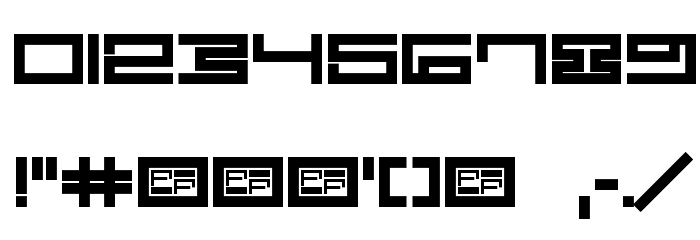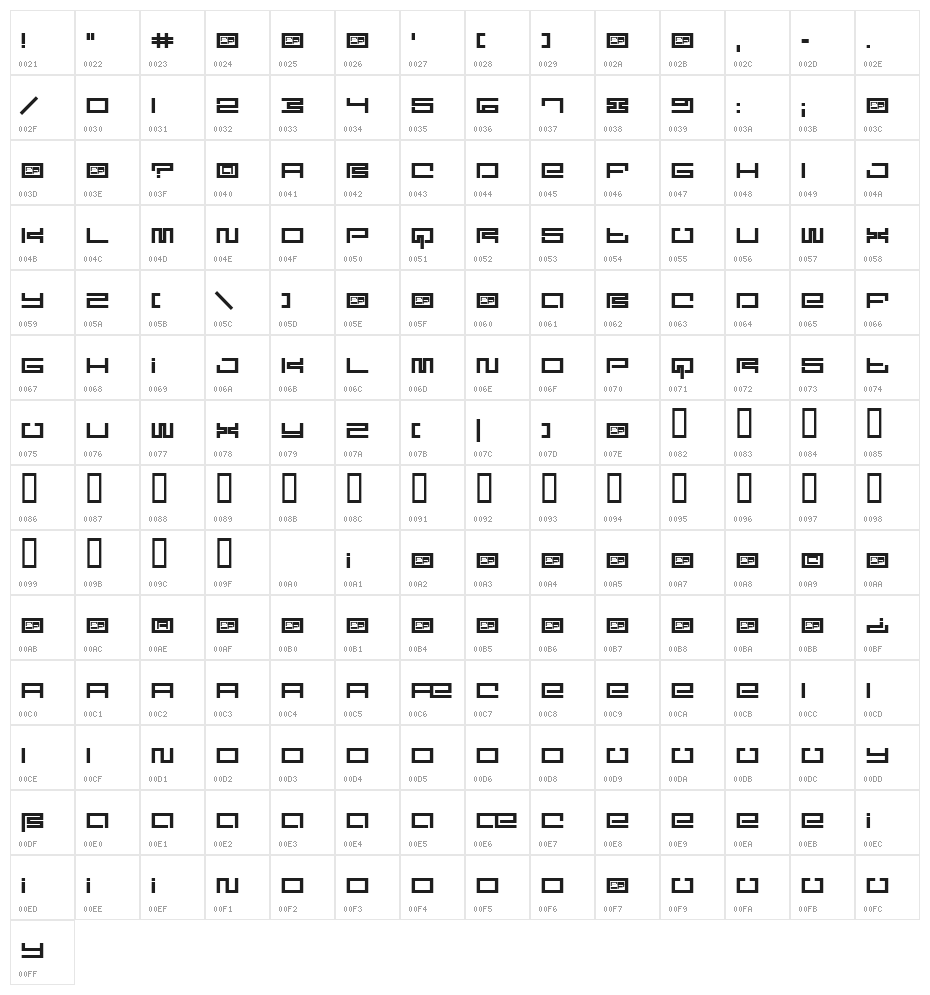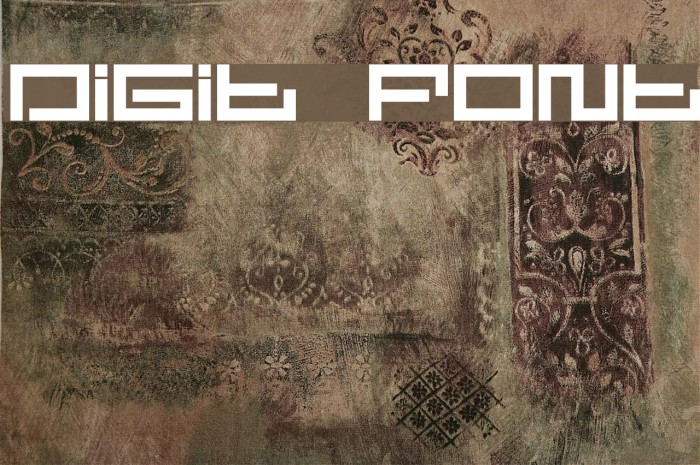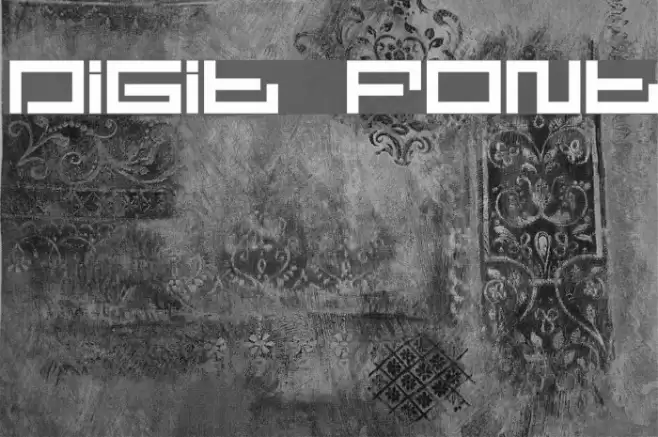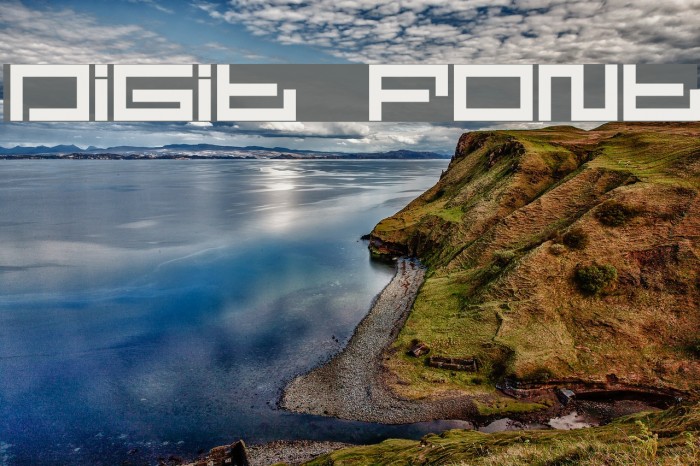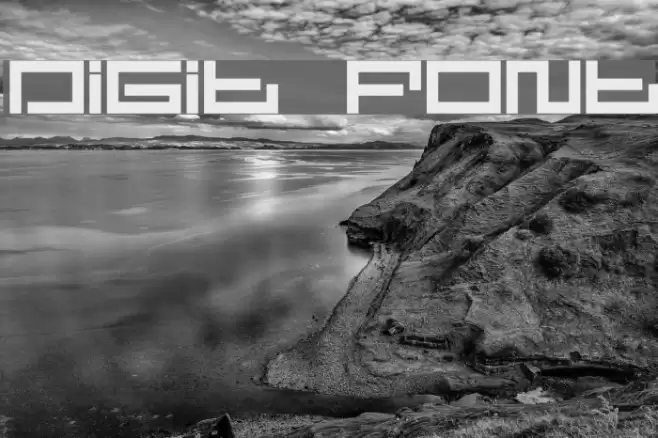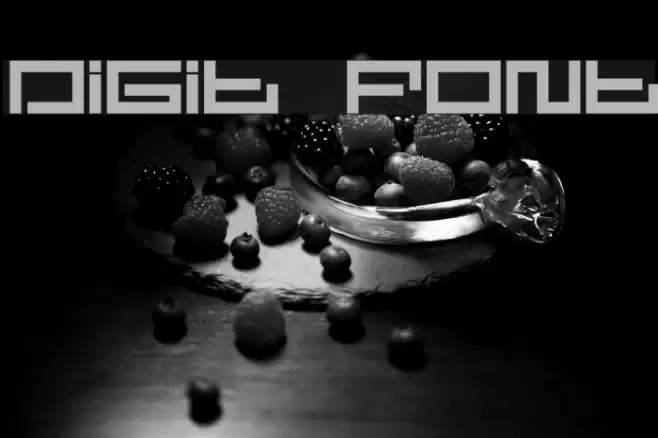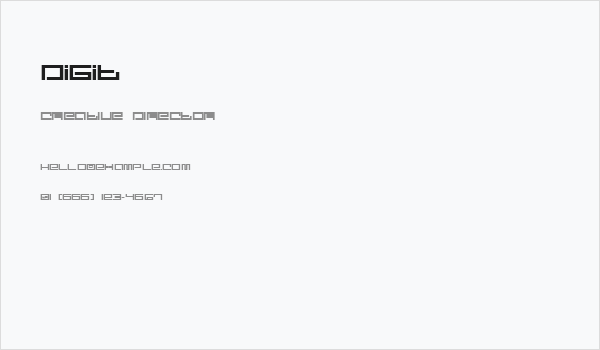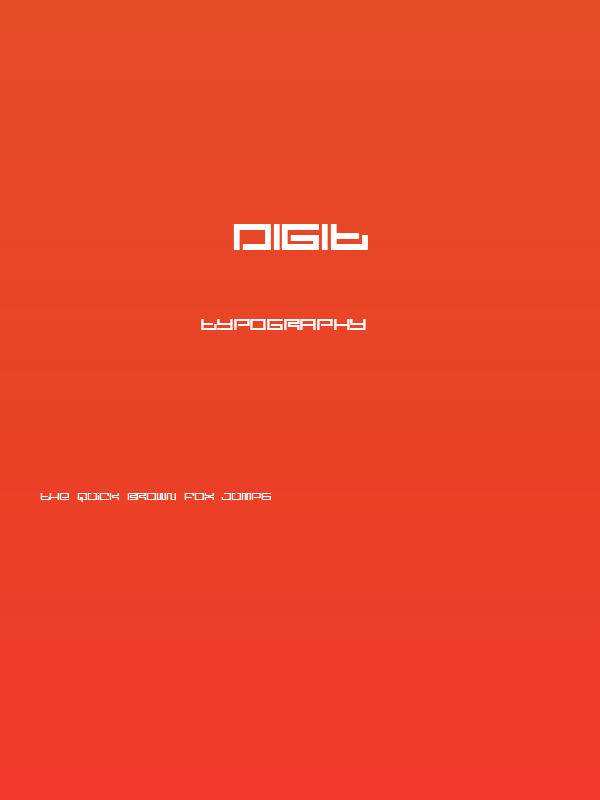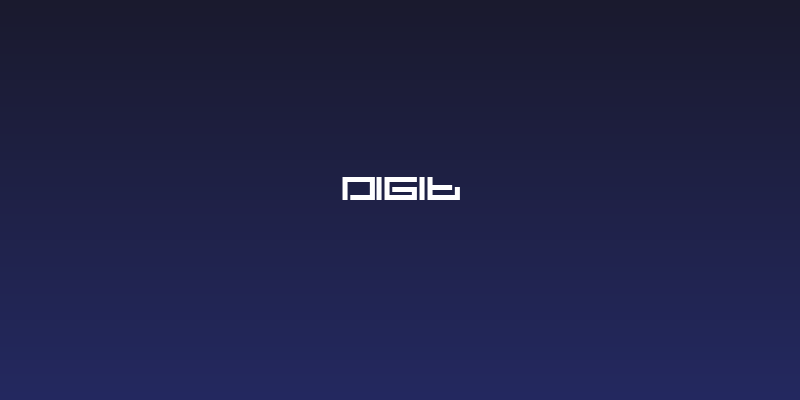
Digit Font
Digit Description
This font features a futuristic and geometric design, characterized by its bold and blocky letterforms. Each character is constructed with sharp angles and straight lines, giving it a digital and modern appearance. The uppercase and lowercase letters maintain a consistent style, with minimal differentiation between them, emphasizing uniformity. Numbers and special characters follow the same design principles, ensuring a cohesive look across all glyphs. The font's structure is reminiscent of digital displays or sci-fi themes, making it ideal for projects that require a modern and technological aesthetic.
| Proposed Projects | Ideal for tech-related branding, sci-fi posters, video game interfaces, and digital art projects. |